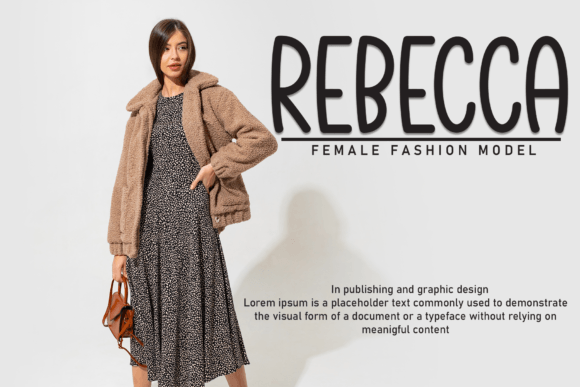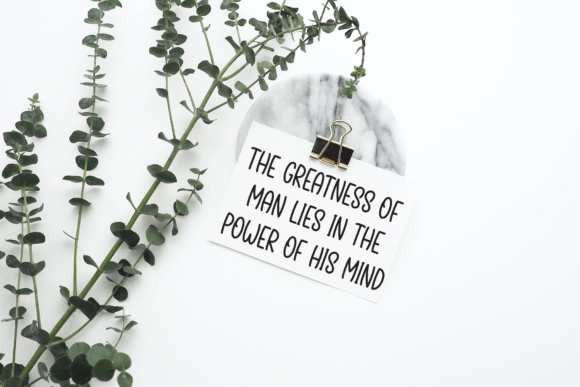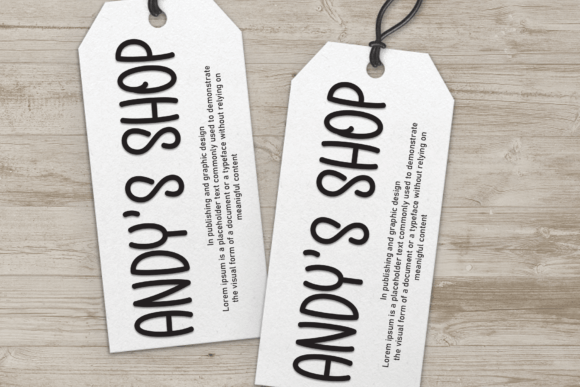
Introduction to Panda Doll Font
Panda Doll is a sweet and friendly handwritten font.
Fresh and cute, this font is ideal for writing wedding invitations, cards, or any other design that might need a fun touch .
Panda Doll Font offers exceptional quality and versatility, making it a valuable addition to your design toolkit. Whether you’re creating for personal projects or commercial use, Panda Doll Font delivers professional results.